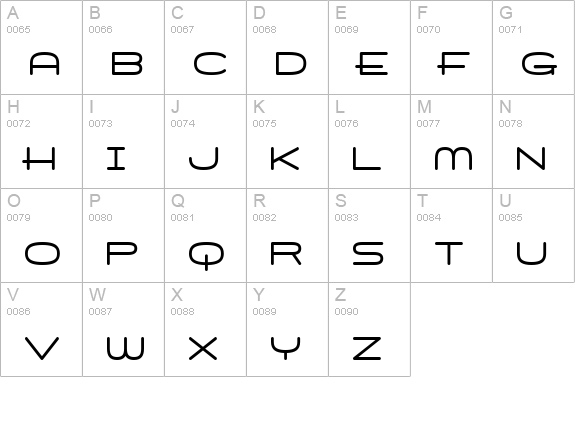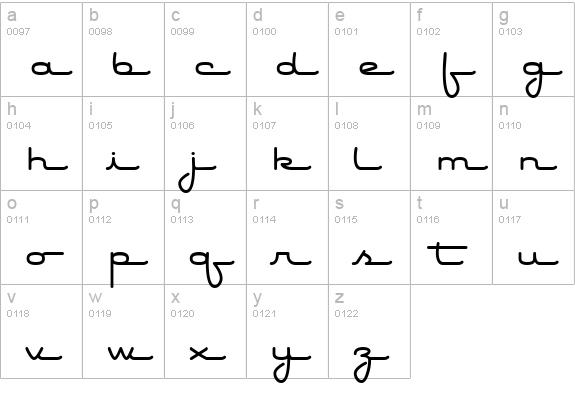
Air Conditioner Font Details
Introducing the Air Conditioner font - a sleek and modern typeface that exudes coolness and sophistication. With its sharp lines and contemporary design, this font is perfect for projects that require a touch of elegance and professionalism. Best of all, the Air Conditioner font is available for free download at FontsMarket.com. Whether you're working on a branding project, creating eye-catching posters, or designing a stylish website, this font will elevate your work to the next level. Don't miss out on the opportunity to add this versatile and stylish typeface to your collection today!